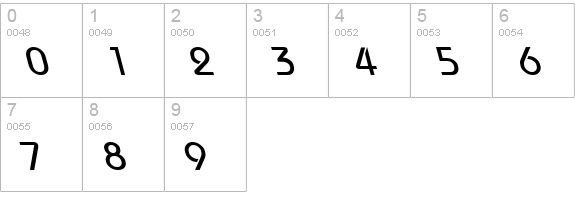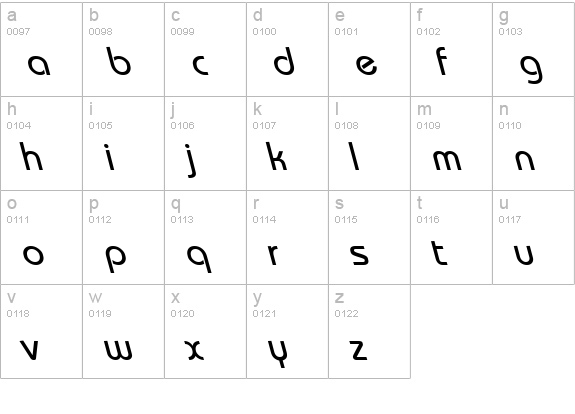
Jasmin Font Details
The Jasmin font is a delightful and elegant typeface that exudes sophistication and charm. With its graceful curves and stylish design, Jasmin is perfect for adding a touch of class to any project. Whether you're creating invitations, branding materials, or social media graphics, this font will elevate your design to the next level. What's even better is that Jasmin is completely free to download at FontsMarket.com. You can easily access this beautiful font and start using it in your projects right away. Don't miss out on the opportunity to enhance your designs with the timeless beauty of Jasmin font. Download it now and let your creativity shine!